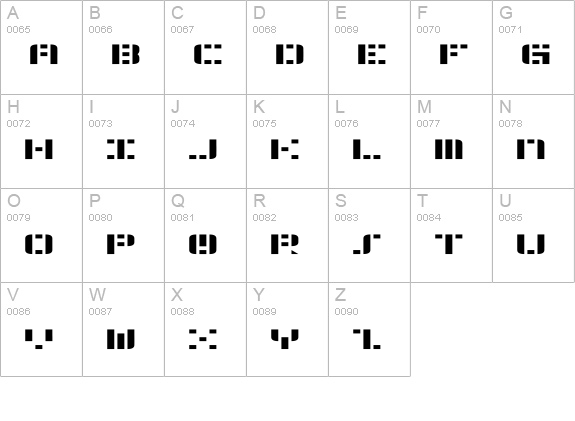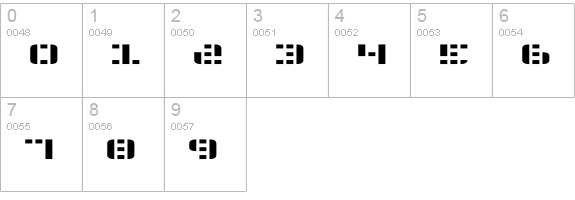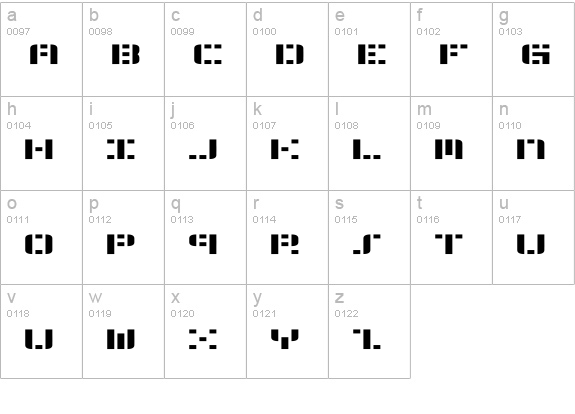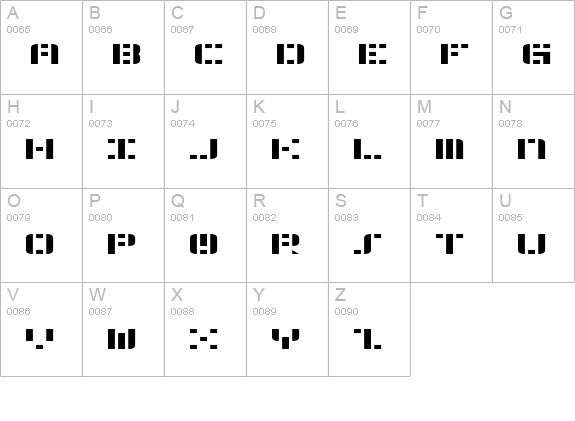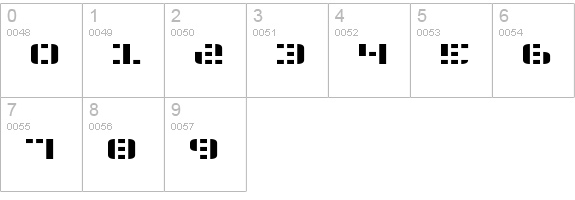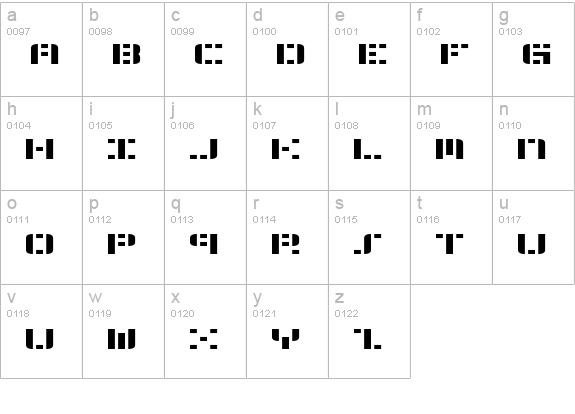
Aldos Moon Font Details
Aldos Moon is a stunning display font that exudes elegance and charm. With its unique and intricate design, this font is sure to make your projects stand out. Whether you're working on branding, invitations, or any other creative endeavor, Aldos Moon is the perfect choice to add a touch of sophistication. What's even better is that Aldos Moon is available for free download at FontsMarket.com. This means you can easily access this beautiful font and use it in your designs without any cost. Don't miss out on the opportunity to enhance your projects with the exquisite beauty of Aldos Moon font. Download it today and let your creativity shine!